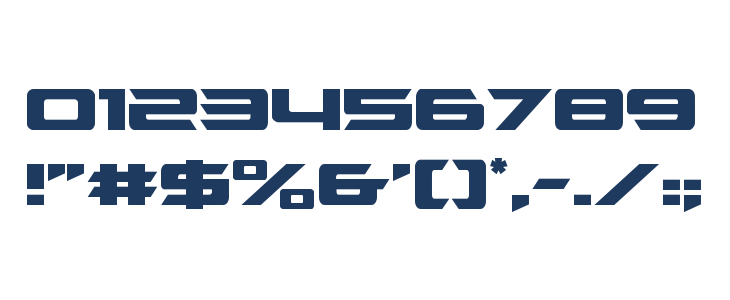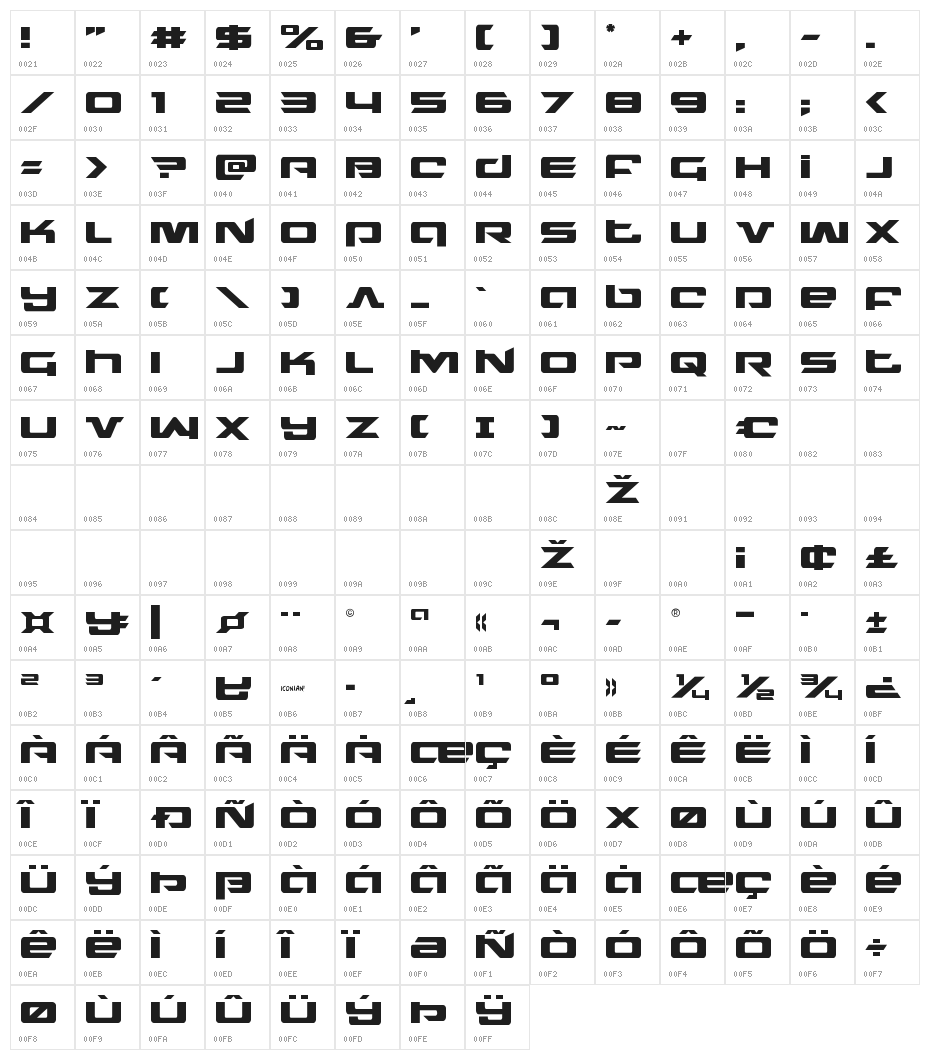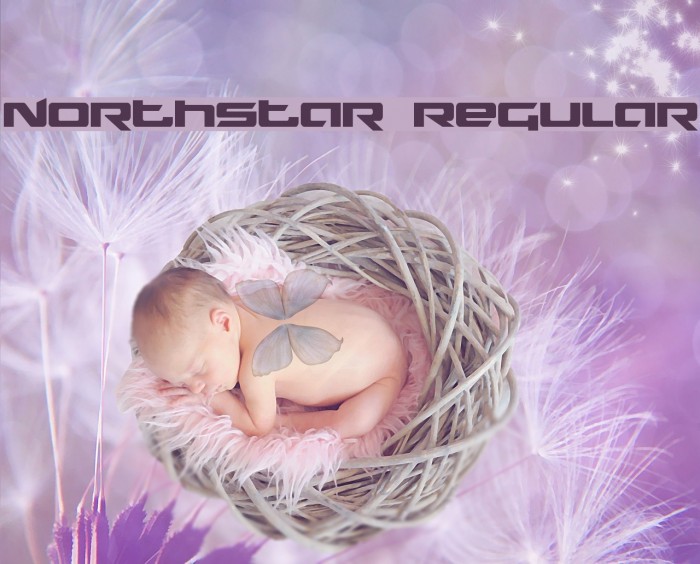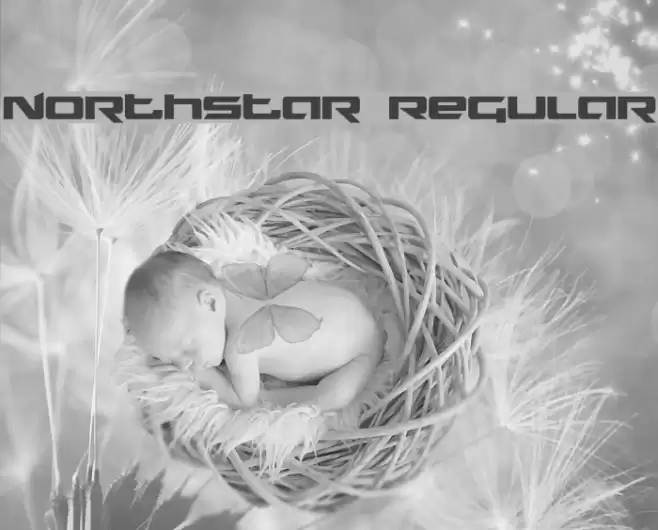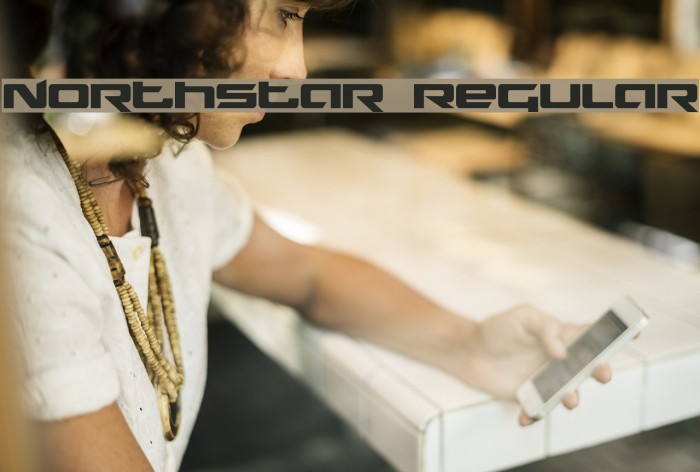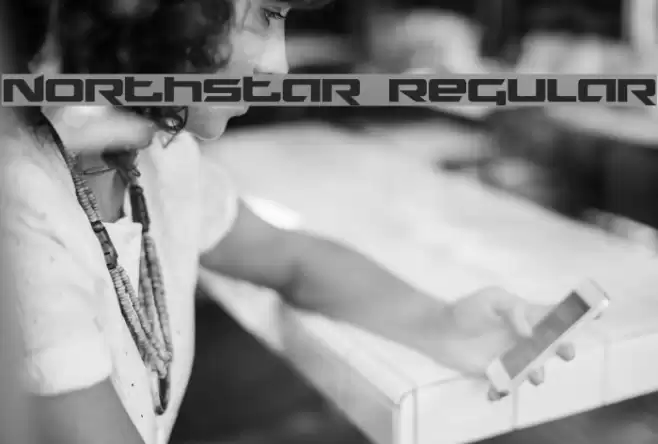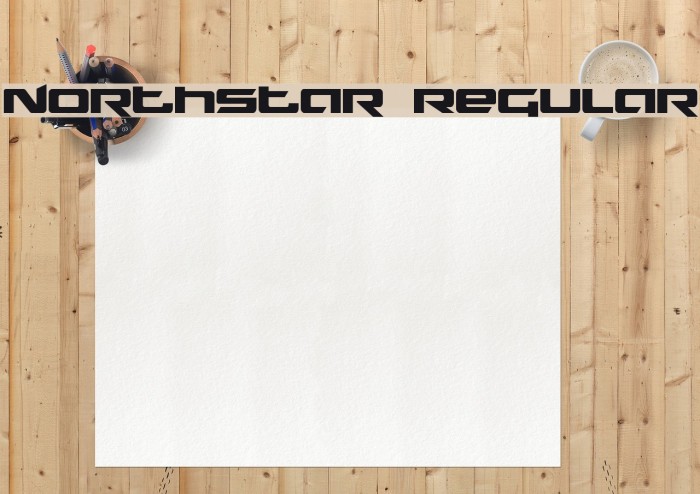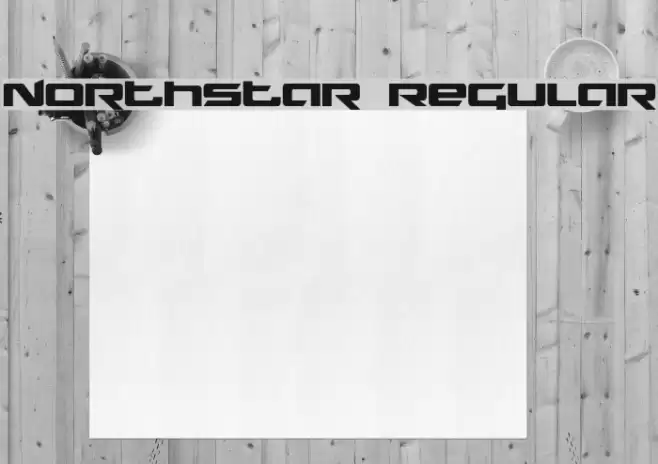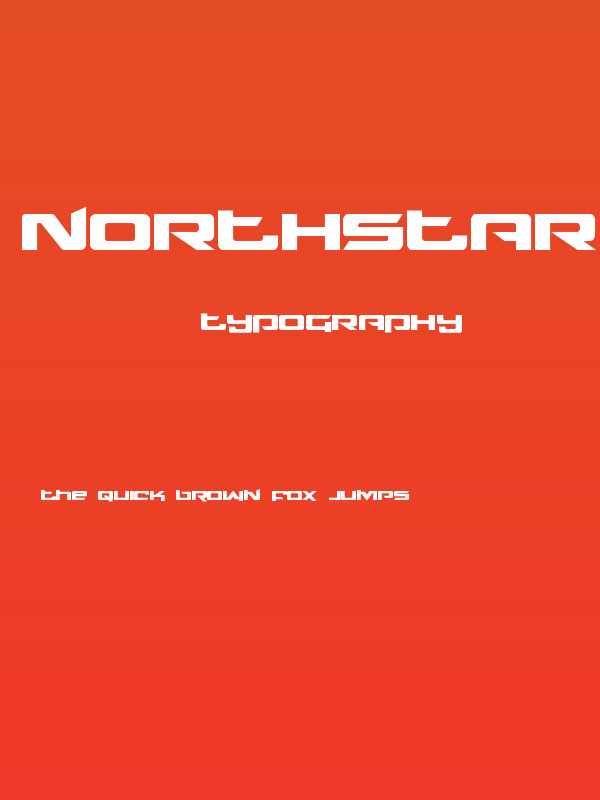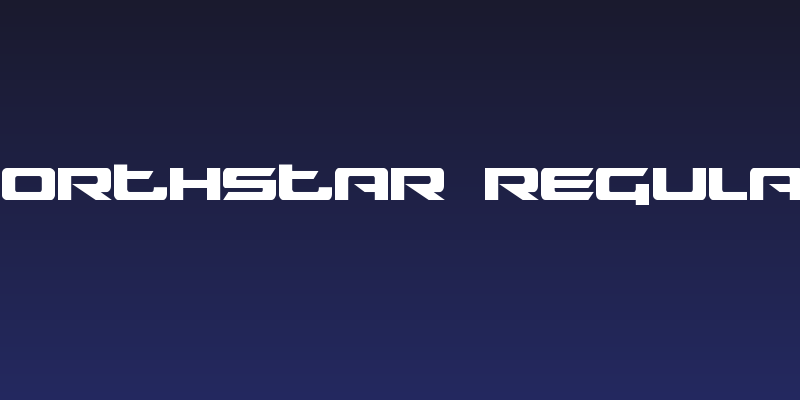
Northstar Regular Font
Northstar Regular Description
This font features a bold, futuristic design with sharp angles and geometric shapes. The characters are uniformly styled with a consistent thickness, giving it a strong and impactful appearance. The uppercase and lowercase letters maintain a similar structure, enhancing readability while retaining a unique aesthetic. The numerals and special characters are designed to match the overall theme, making it suitable for modern and tech-oriented projects. The font's distinct style makes it ideal for creating eye-catching headlines, logos, and branding materials.
| Proposed Projects | Ideal for tech branding, sci-fi posters, video game titles, and modern logos. |